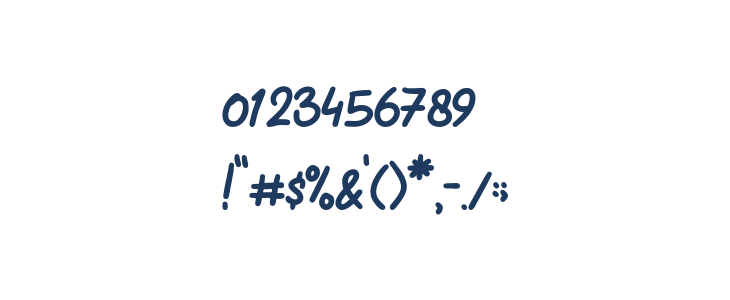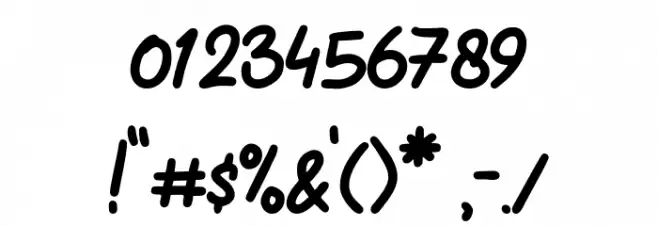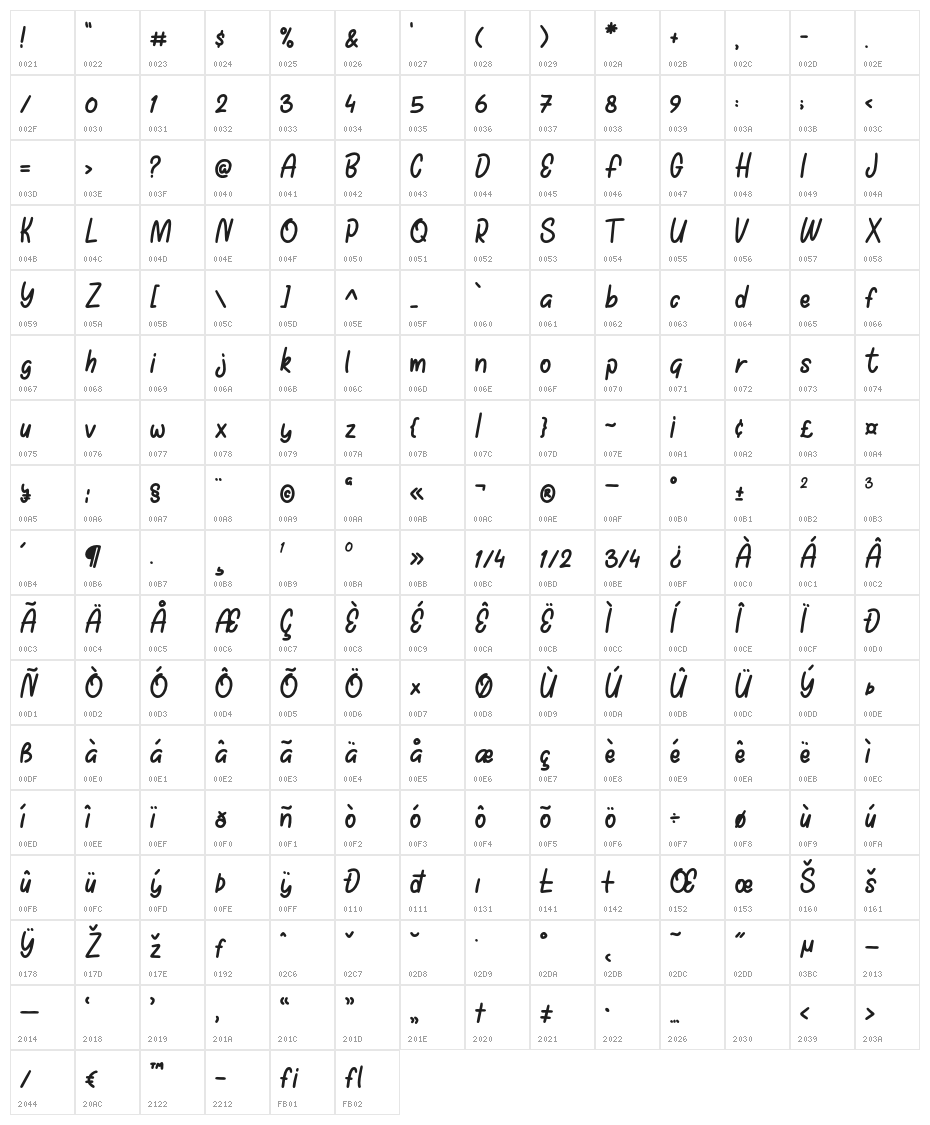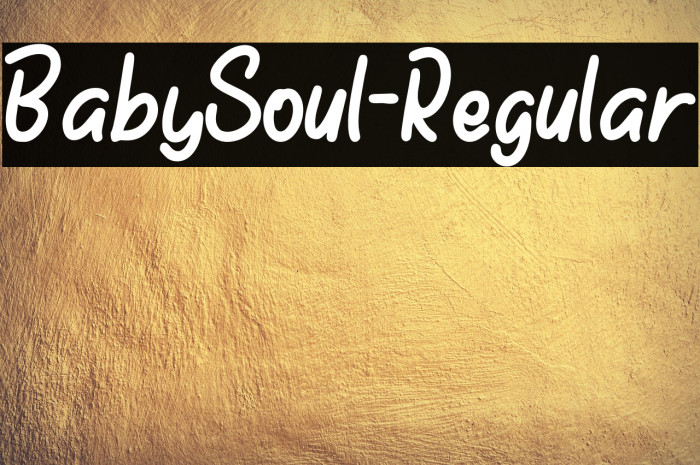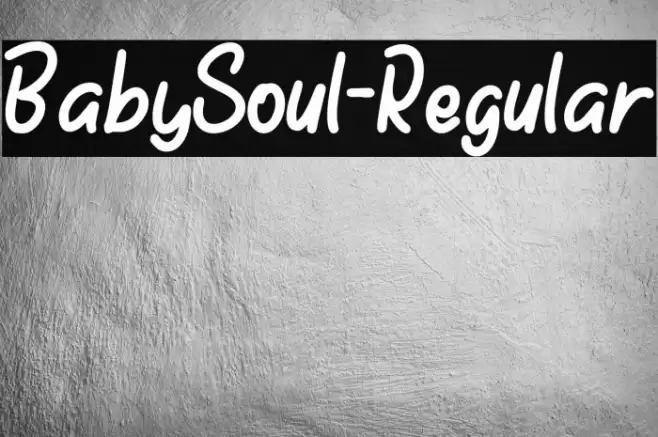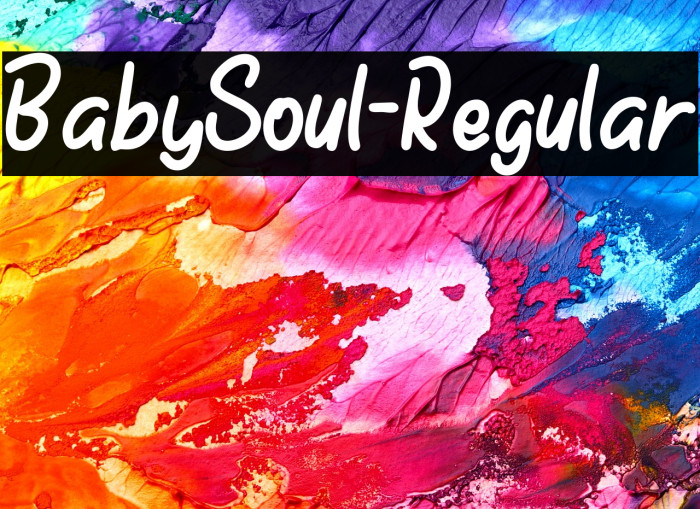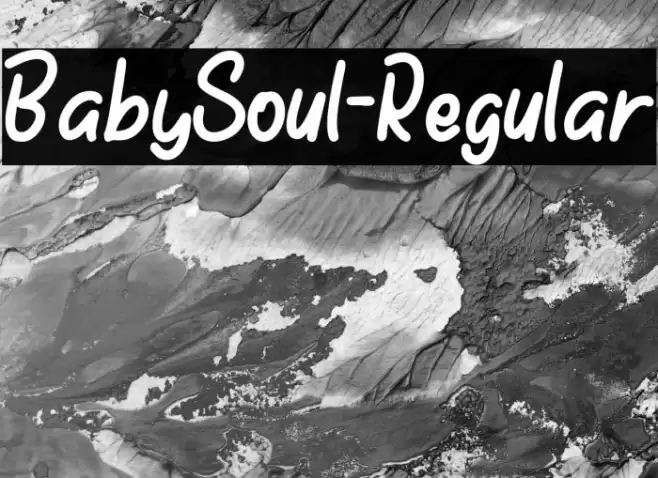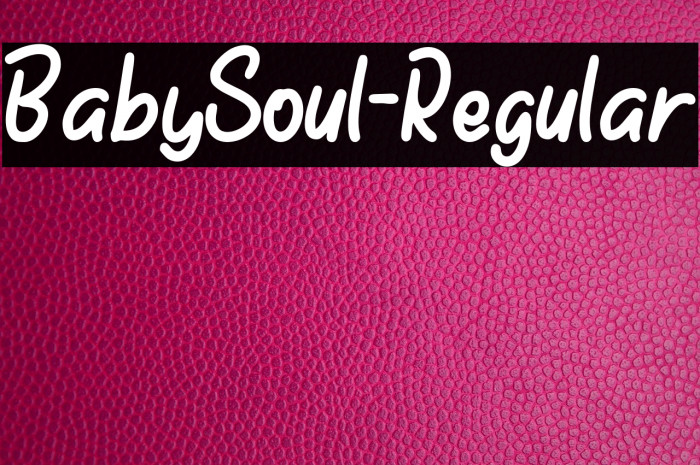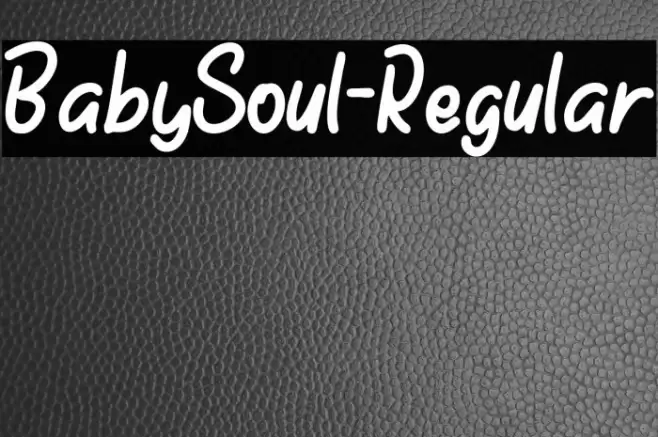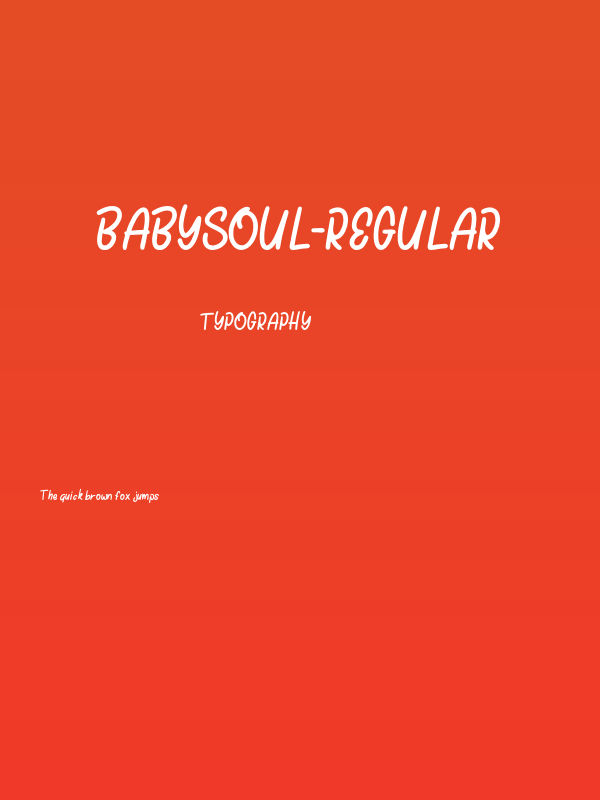
BabySoul-Regular Font
BabySoul-Regular Description
This playful and lively font features a handwritten style with smooth, rounded edges and a casual flow. Each character is crafted with a consistent stroke width, giving it a cohesive and harmonious appearance. The uppercase letters are bold and prominent, while the lowercase letters maintain a friendly and approachable look. The numerals are clear and easy to read, complementing the overall style. Special characters are creatively designed, adding to the font's charm. This font is perfect for projects that require a personal touch, such as invitations, greeting cards, or playful branding.
| Overall Style | Playful, Casual |
| Proposed Projects | Ideal for invitations, greeting cards, playful branding, and personal projects. |